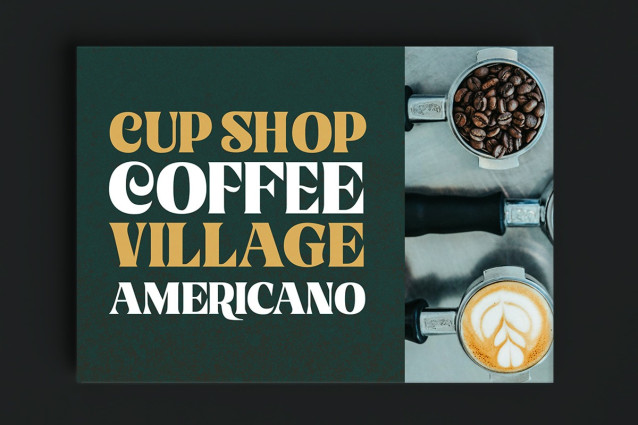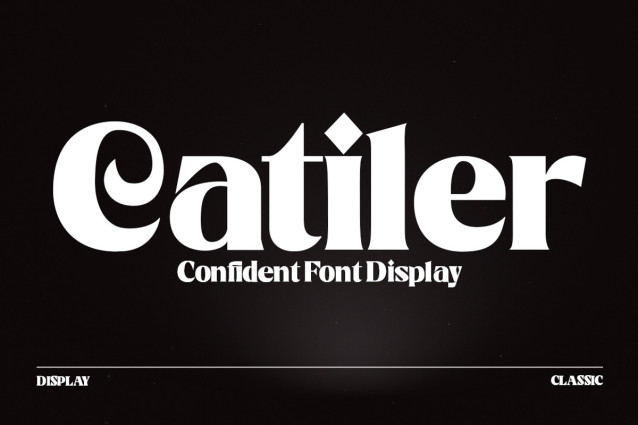
Catiler Font
Catiler Font is an elegant and highly dynamic modern display font for editorial titles. This serif and italic font style is OpenType-enabled, making it easy to use in a variety of projects. It also comes with symbols and multilingual support. This bold, bold, and sleek font style is suitable for editorials, web, posters, t-shirts, magazine covers, and more.